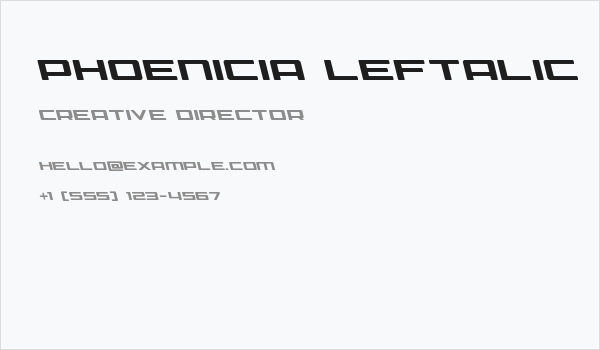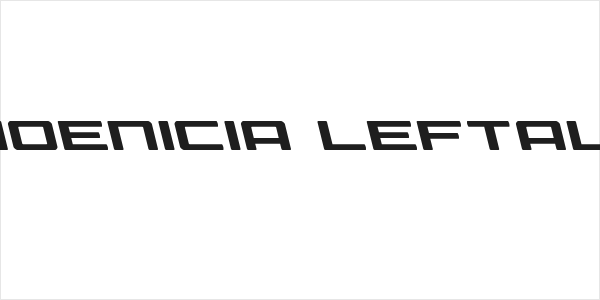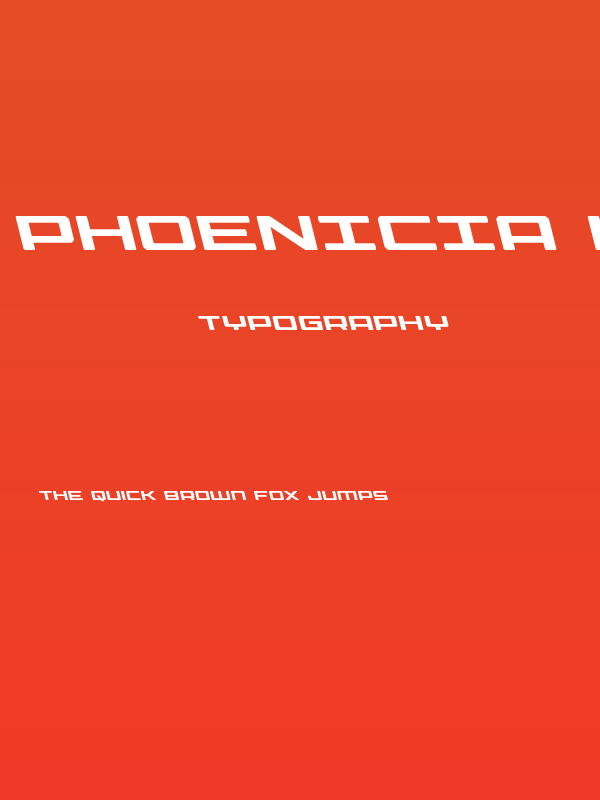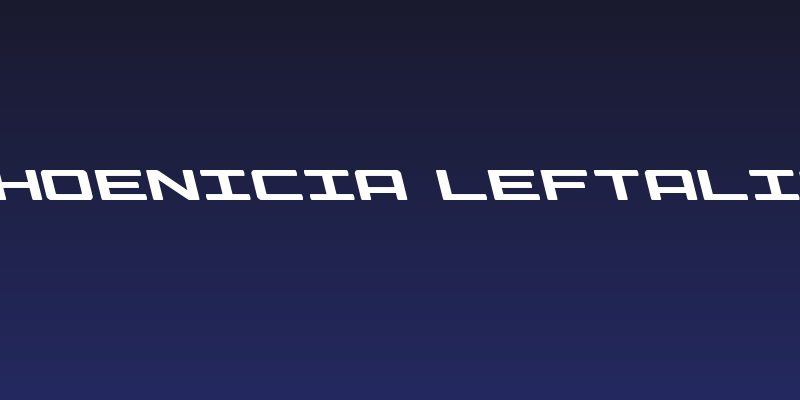
Phoenicia Leftalic Font
Phoenicia Leftalic Description
This font presents a bold and futuristic design with a distinct geometric structure. The characters are slightly slanted, giving a dynamic and forward-moving appearance. The angular cuts and sharp edges contribute to a modern and tech-inspired aesthetic. The uppercase and lowercase letters maintain a consistent style, with uniform stroke widths that add to its boldness. The numerals and special characters follow the same design principles, ensuring a cohesive look across all glyphs. This font's unique style makes it suitable for projects that require a strong visual impact.
| Proposed Projects | Ideal for technology branding, sci-fi movie posters, video game titles, and modern advertising campaigns. |